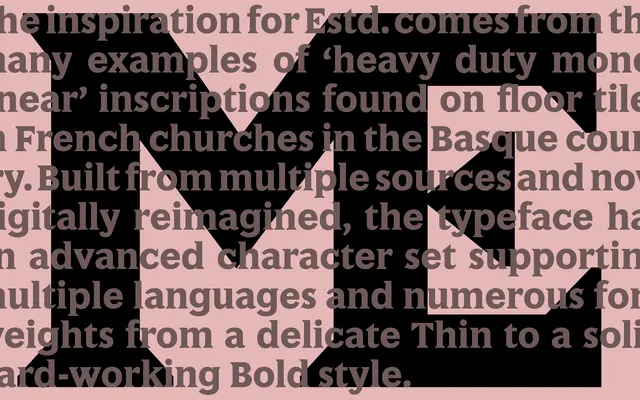
A mono-linear sans drawn from inscribed floor tiles in Basque Country churches, digitised across seven weights with a broad character set.
The letterforms are rooted in the even-stroked inscriptions found on church floor tiles in the French Basque Country, giving the family a quiet, archaic rigidity that sets it apart from conventional geometric sans designs. Seven weights run from Thin to Bold without italics, keeping the family focused on display and titling applications where the inscriptional quality reads clearly. The extended character set supports multiple languages, broadening its practical reach beyond its niche historical source material.
Described by A2-Type as 'heavy duty mono-linear', the letterforms derive from inscribed tile work rather than typographic tradition, producing a geometric, even-stroked sans with an archaic, engraved quality.